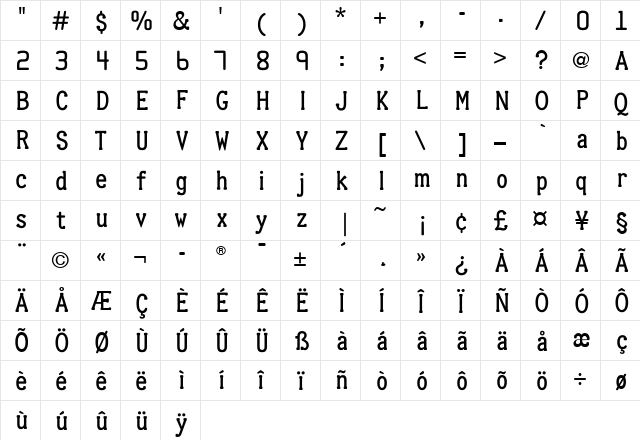
AmexCardEmbossingBc Book
| Foundry | Ogilvy & Mather |
Design Context for AmexCardEmbossingBc Typeface
AmexCardEmbossingBc is a composed and adaptable typeface that performs quietly and consistently across a wide range of design contexts.